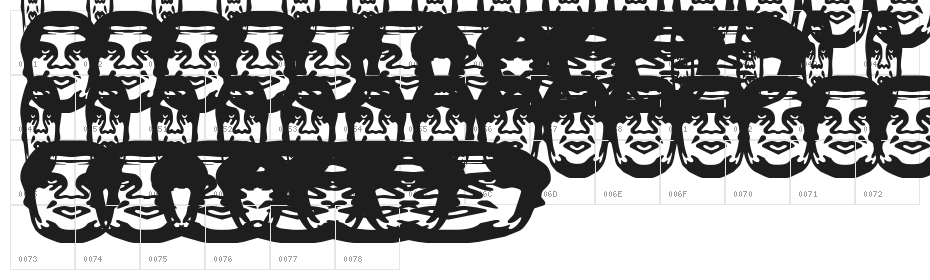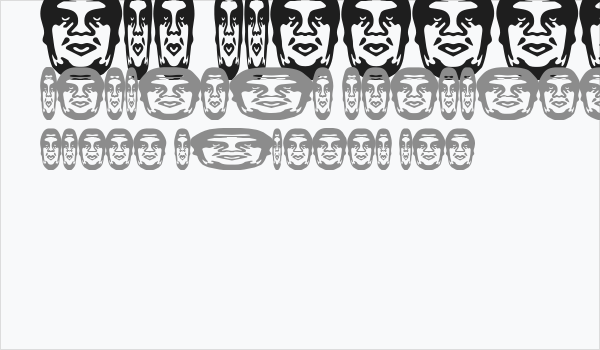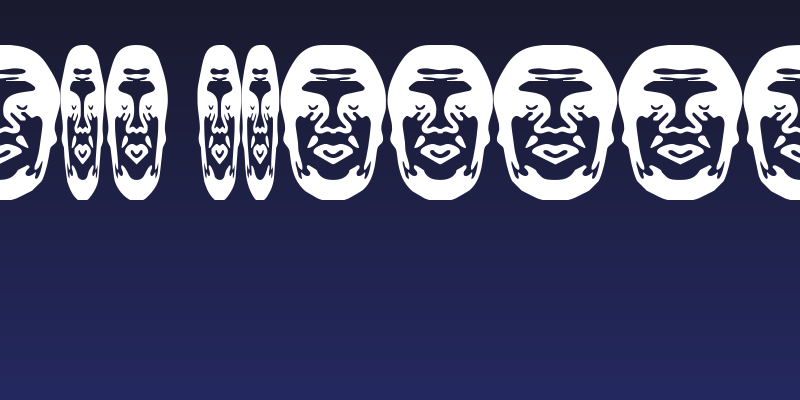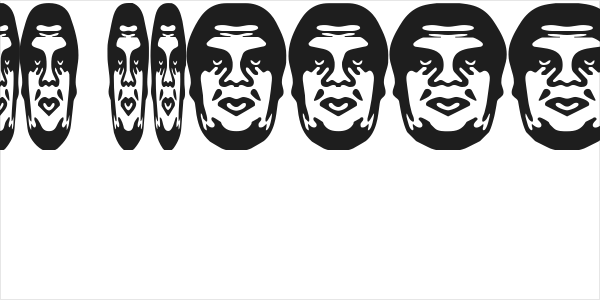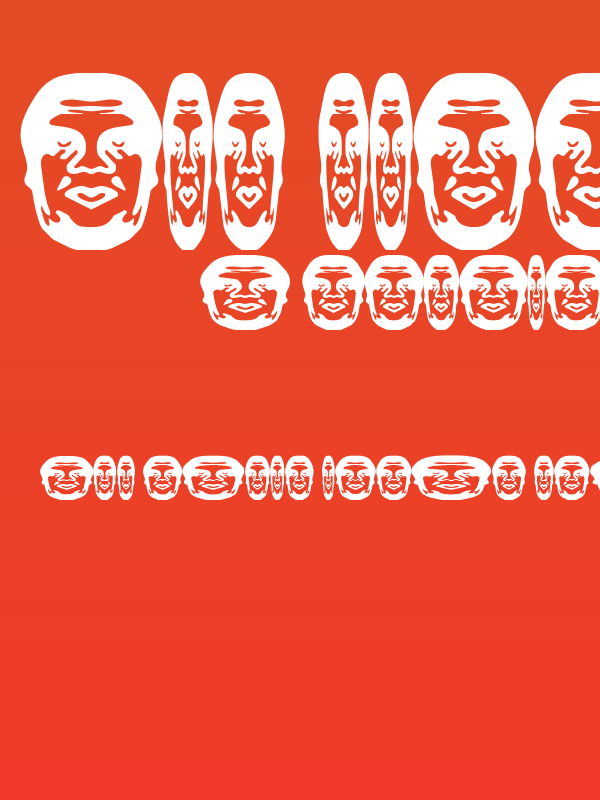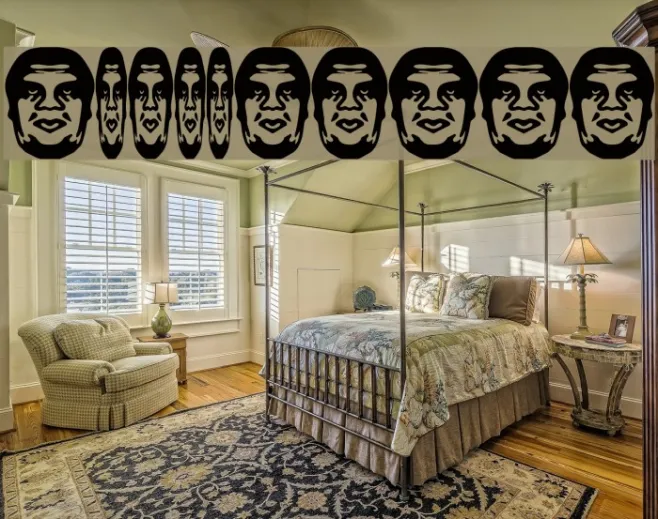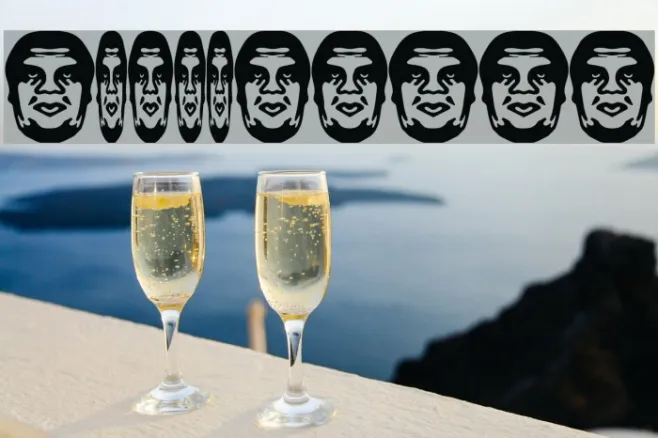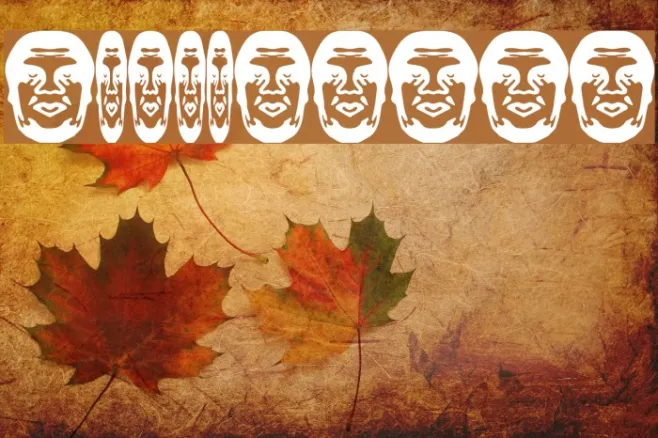
ObeyBalloon Font
ObeyBalloon Description
A highly stylized, decorative typeface where each character is represented by a bold, black-and-white graphic face, making it more of a pictorial or novelty font rather than a traditional alphanumeric set.
| Overall Style | Decorative, Urban, Graphic |
| Use Case | Logos, Posters, Headlines, Artistic projects |
| Proposed Projects | Posters, street art, album covers, protest art, branding for edgy or counterculture projects. |